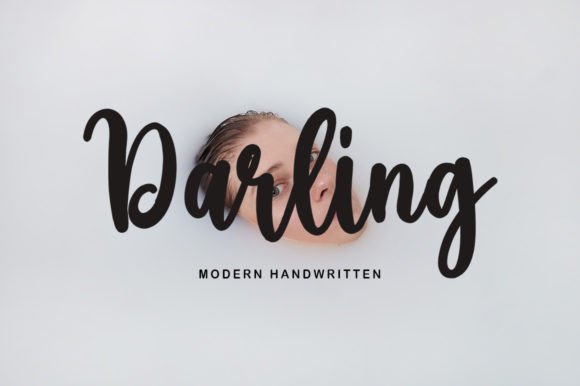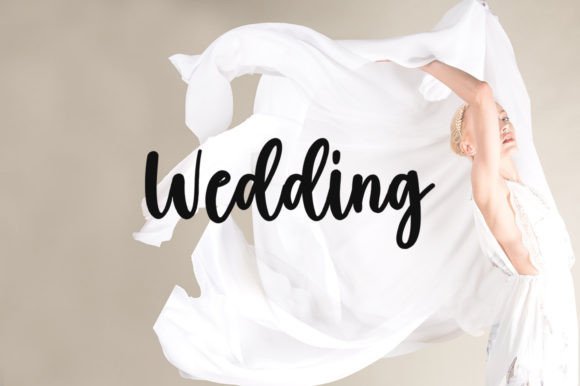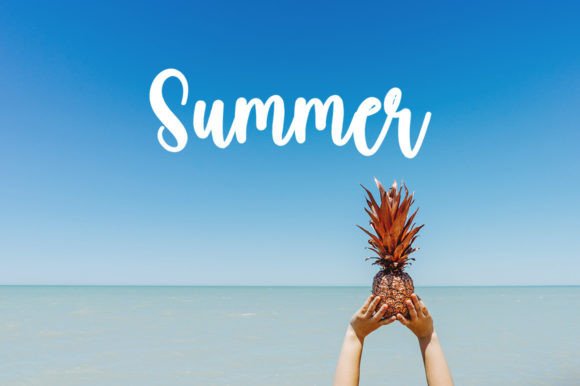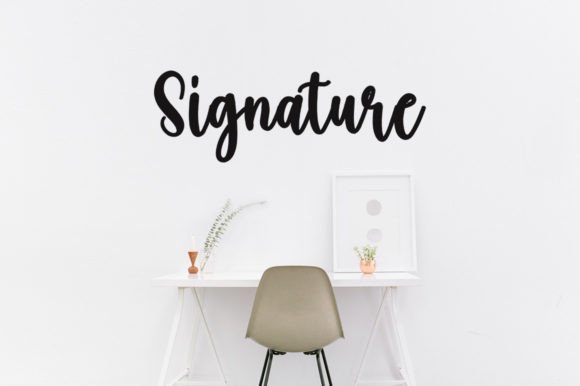
A Charming and Elegant Handwritten Font
The Darling Font is a charming and elegant handwritten typeface designed to add a personal and sophisticated touch to any design project. Its smooth and flowing strokes make it perfect for wedding invitations, thank you cards, quotes, and other designs that require a touch of grace and warmth. Whether you’re working on greeting cards, business cards, or logos, the Darling Font brings an authentic handwritten charm to your work.
Perfect for Wedding Invitations and Special Occasions
For wedding invitations and special occasions, the Darling Font is an excellent choice. Its elegant and romantic design adds a personal touch to your wedding stationery, ensuring that your invitations and save-the-date cards feel extra special. Whether you’re designing for a classic wedding or a vintage celebration, this font gives your stationery a beautiful, memorable look.
Ideal for Thank You Cards and Greetings
The Darling Font is perfect for thank you cards and greeting cards. Its charming and friendly style makes it ideal for expressing gratitude and sending warm wishes. Whether you’re creating holiday cards, birthday thank you notes, or special occasion greetings, this font adds a lovely, elegant touch to your messages, making them stand out with a personal feel.
Great for Quotes and Social Media Graphics
The Darling Font works beautifully for quotes and social media graphics. Whether you’re sharing inspirational quotes on Instagram, Pinterest, or Facebook, this font adds a stylish, elegant look that captures attention. Its legible yet artistic style ensures your text is easy to read while still feeling personal and memorable.
Perfect for Logos and Branding
For logos and branding projects, the Darling Font provides a unique, personalized touch. Whether you’re designing for a boutique, creative business, or fashion brand, this font offers a refined, elegant style that ensures your brand stands out. Its handwritten design gives your brand a friendly, approachable feel while maintaining a high level of professionalism.
Legible, Elegant, and Timeless
Despite its handwritten style, the Darling Font remains legible and easy to use. Its flowing characters are well-spaced, ensuring that your text remains clear and readable, even for longer passages or smaller sizes. Whether you’re designing for headlines, subheadings, or body text, this font strikes the perfect balance of elegance and readability, making it perfect for a wide range of design applications.
Add Elegance and Charm to Your Designs with Darling Font
If you’re looking for a charming, elegant, and versatile handwritten font to enhance your designs, the Darling Font is the perfect choice. Whether you’re designing wedding invitations, thank you cards, logos, or social media graphics, this font adds a personalized, elegant touch to your work. Let the Darling Font bring a charming and sophisticated flair to your designs, helping your projects stand out with a unique handwritten feel.